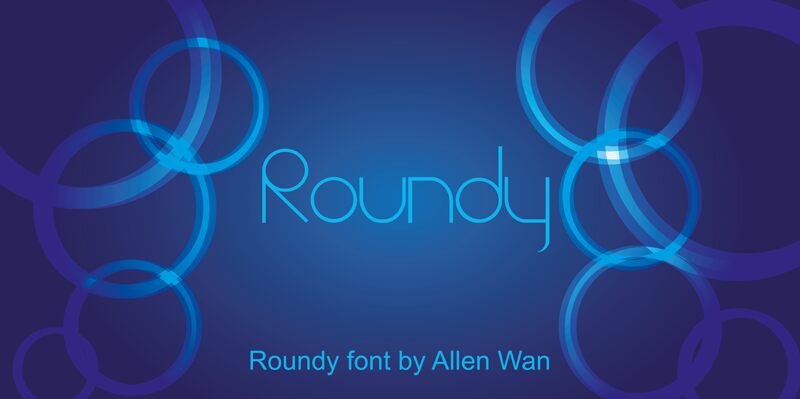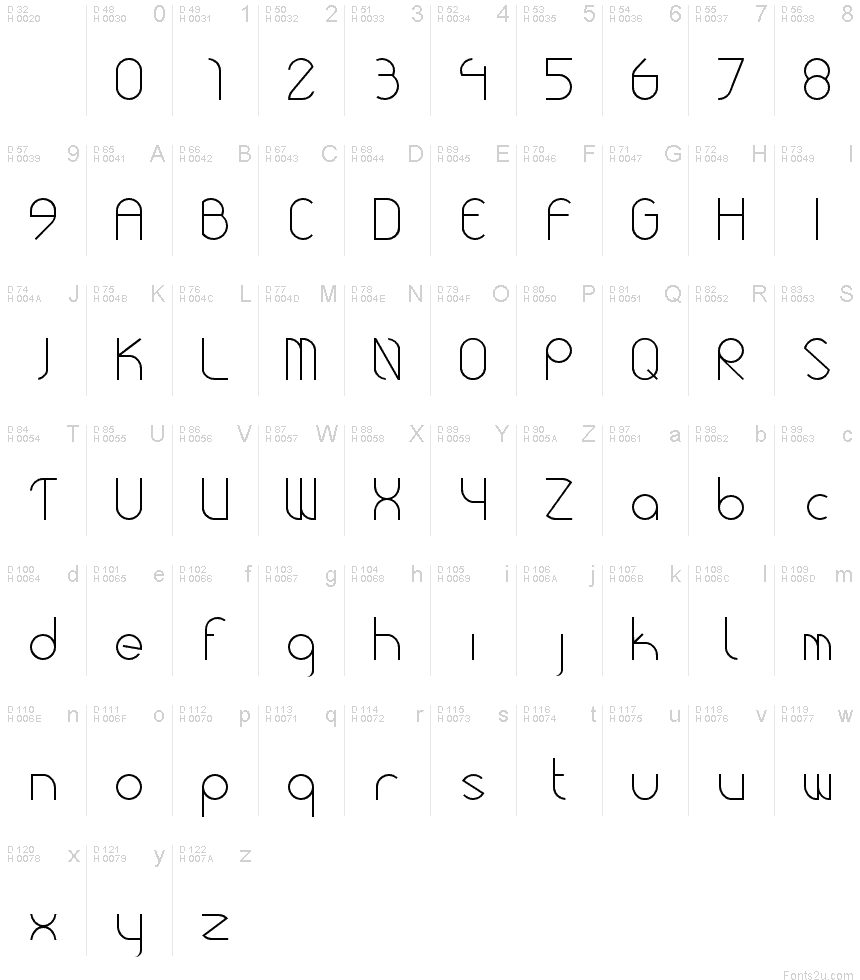
Roundy
Roundy is inspired by the name of the fruit "Orange", but also old/new typography that were combined with a modern and old school look to this unique typeface.
The design is part of a TAFE Project.